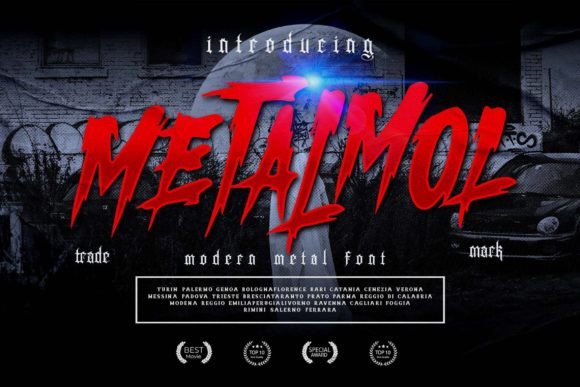
Introducing Metalmol Font, the ultimate choice for all your calligraphy needs! Created by Dansdesign, this blackletter font is a mesmerizing blend of horror and metal, designed to captivate and inspire. With its highly detailed and distinct style, Metalmol is guaranteed to elevate your designs to new heights.
Are you in search of a font that exudes both elegance and edginess? Look no further than Metalmol Font! Its unique combination of horror and metal aesthetics sets it apart from the rest, making it the perfect choice for any retro-urban design project. Whether you're working on tattoo business branding, logo design, or vintage-inspired layouts, this font will add a touch of sophistication and intrigue.
What sets Metalmol Font apart from the competition is its intricate detailing. Each character is meticulously crafted, ensuring that every stroke is a work of art. The result? A font that not only catches the eye but also evokes emotions. Its bold and dramatic presence on the page will leave a lasting impression on anyone who sees it.
One of the standout features of Metalmol Font is its versatility. While it excels in calligraphy, it also lends itself beautifully to a wide range of creative projects. Unleash your imagination and explore the endless possibilities this font offers. From posters and album covers to merchandise and social media graphics, Metalmol Font will effortlessly transform your ideas into stunning visuals.
But it's not just about looks – Metalmol Font is also designed with functionality in mind. Its easy-to-read characters ensure legibility, even at small sizes. So whether you're using it for print or digital media, rest assured that your message will be delivered loud and clear.
Ready to take your designs to the next level? Look no further than Metalmol Font. Its captivating and emotive nature will draw your audience in, leaving them eager to explore further. Don't settle for ordinary fonts when you can have an extraordinary one that truly speaks to your creativity.